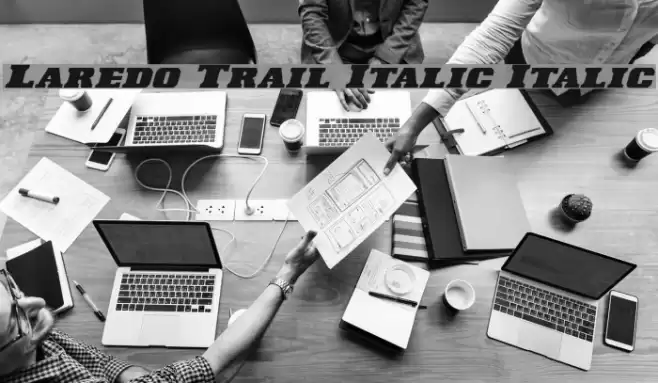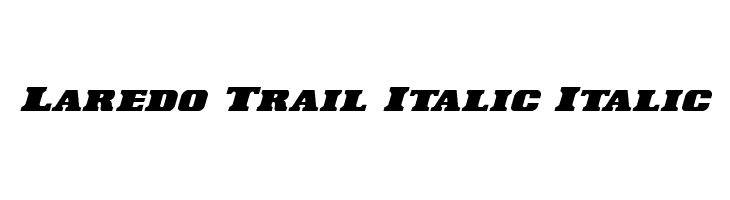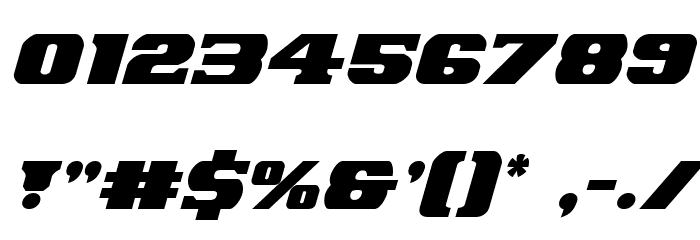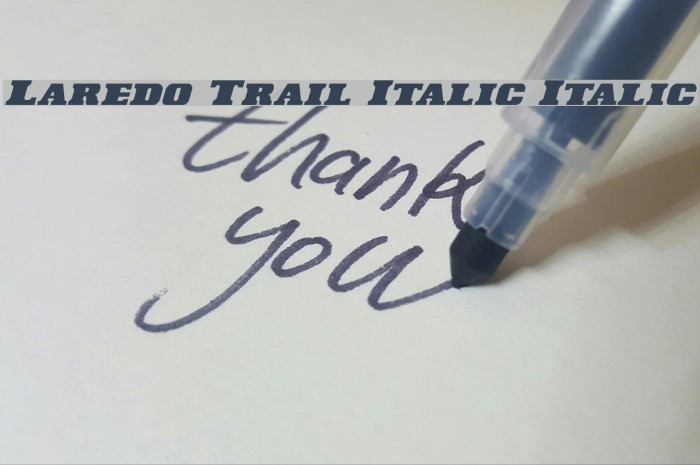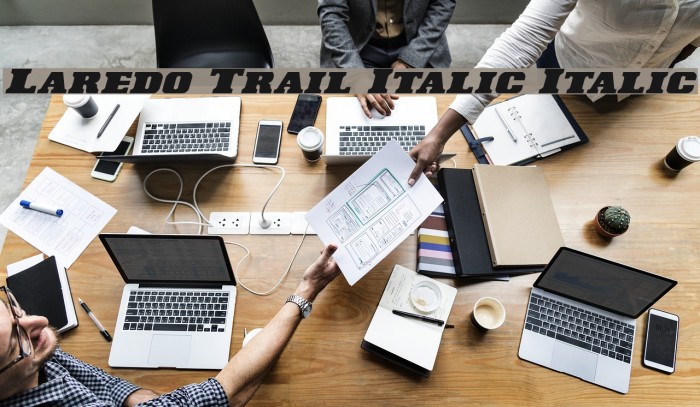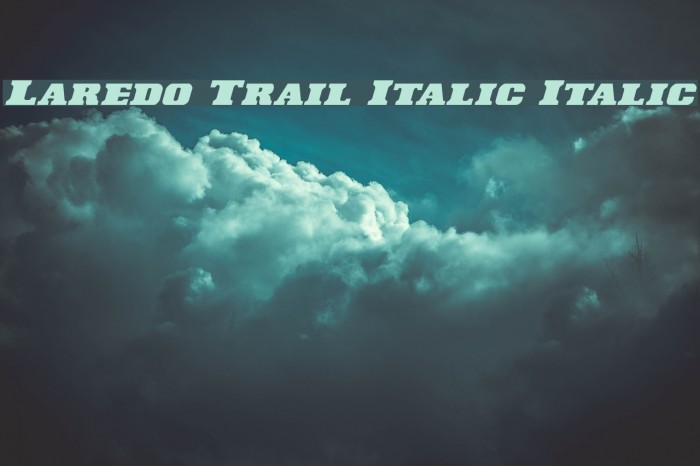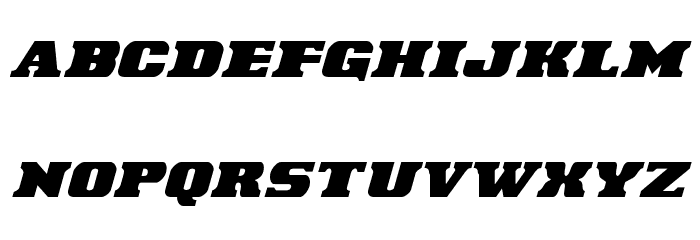
Laredo Trail Italic Italic Font
Laredo Trail Italic Italic Description
This font exhibits a bold and dynamic style with a strong italic slant, giving it a sense of motion and energy. The characters are robust and impactful, featuring thick strokes that enhance their presence. The design is consistent across uppercase and lowercase letters, as well as numerals and special characters, maintaining a cohesive look. The font's boldness is complemented by its italic nature, making it suitable for attention-grabbing headlines and titles. The spacing between characters is tight, which contributes to its compact and powerful appearance. Overall, this font is ideal for projects that require a bold statement and a modern, energetic feel.
A bold, italic font with a dynamic and energetic style from Uncategorized fonts.
- Proposed Projects: Ideal for sports branding, dynamic posters, and impactful headlines.
- Character Spacing: Tight